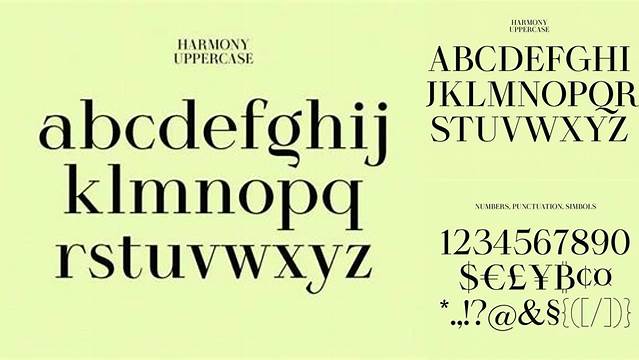
Are you on the hunt for that perfect font to elevate your design projects? Look no further, guys! In this article, we're diving deep into the world of Harmony Modern Serif, a font that's been making waves in the design community. We'll explore what makes it so special, how you can use it, and most importantly, how to get your hands on it for free. So, buckle up and let's get started!
What is Harmony Modern Serif Font?
When we talk about Harmony Modern Serif, we're not just talking about another typeface; we're talking about a versatile tool that can breathe life into your creative visions. This font is characterized by its elegant curves, clean lines, and a contemporary aesthetic that blends the classic appeal of serifs with a modern sensibility. It’s the kind of font that makes you sit up and take notice, whether it’s gracing the pages of a high-end magazine or adding a touch of sophistication to a website's header. The beauty of Harmony Modern Serif lies in its balance. The serifs, those small strokes at the end of the letters, give it a traditional feel, while the overall design maintains a sleek, minimalist quality. This makes it incredibly adaptable, fitting seamlessly into a variety of design contexts. Think of it as the chameleon of fonts, able to transform and adapt to suit your needs. You can use it for headlines, body text, logos, branding materials, and so much more. It’s the kind of font that designers reach for when they want to convey a sense of elegance, trustworthiness, and modernity, all rolled into one neat package. But what really sets Harmony Modern Serif apart? It's the attention to detail. Every curve, every line, every serif has been meticulously crafted to ensure a cohesive and harmonious look. The spacing between letters, known as kerning, is carefully considered, creating a visual rhythm that's pleasing to the eye. This level of refinement is what elevates a good font to a great font, and it's what makes Harmony Modern Serif a standout choice for designers who demand the best. Moreover, the Harmony Modern Serif font often comes with a variety of weights and styles, such as regular, italic, bold, and more. This versatility allows you to create visual hierarchy within your designs, emphasizing key information and adding depth to your layouts. Imagine using the bold weight for headlines to grab attention, and the regular weight for body text to ensure readability. The possibilities are endless! And let's not forget the importance of a well-designed font in conveying the right message. A font isn't just about aesthetics; it's about communication. It’s about setting the tone and mood of your design. Harmony Modern Serif, with its blend of classic and contemporary elements, can help you project an image of sophistication, reliability, and innovation. It’s a font that says, “We’re modern, but we also value tradition.”
Key Features and Design Elements
Delving deeper into Harmony Modern Serif, let's dissect its key features and design elements. Understanding these nuances will help you appreciate its versatility and how it can enhance your projects. At its core, Harmony Modern Serif is defined by its high contrast between thick and thin strokes. This contrast is a hallmark of modern serif fonts, lending them a refined and elegant appearance. The thick strokes command attention, while the thin strokes add a delicate touch, creating a visual dance that's both striking and graceful. This contrast is particularly evident in the letterforms, where the vertical strokes are often thicker than the horizontal ones, giving the font a strong, vertical emphasis. This verticality contributes to its modern feel, making it a perfect choice for designs that aim to convey a sense of sophistication and contemporary style. The serifs themselves are another crucial element of Harmony Modern Serif. Unlike the bracketed serifs found in older serif fonts, Harmony’s serifs are typically hairline or wedge-shaped. This gives them a sharp, clean look that complements the font's overall modernity. These serifs aren't just decorative; they also contribute to the font's readability, guiding the eye across the page and making it easier to read long passages of text. The terminals, or the ends of the strokes, are another area where Harmony Modern Serif shines. They are often cut at a sharp angle, adding to the font's crisp and polished appearance. This attention to detail in the terminals is what elevates Harmony from a simple serif font to a truly modern typeface. The letterforms in Harmony Modern Serif are generally well-proportioned and balanced. The x-height, which is the height of the lowercase letters relative to the uppercase letters, is usually moderate to high. This contributes to the font's legibility, making it comfortable to read even at smaller sizes. The curves in the letterforms are smooth and flowing, adding to the font's overall elegance. These curves are carefully crafted to create a sense of harmony and balance, which is, after all, what the font's name suggests. The spacing, or kerning, in Harmony Modern Serif is meticulously adjusted to ensure a consistent and pleasing visual rhythm. The letters are spaced closely enough to create a cohesive word shape, but not so closely that they feel cramped or crowded. This careful attention to spacing is what makes Harmony so readable and visually appealing. Furthermore, many versions of Harmony Modern Serif include a range of weights and styles, from light to bold, and often include italic versions as well. This versatility allows designers to create visual hierarchy within their designs, using different weights to emphasize key elements and add interest. The italic versions of Harmony are often particularly elegant, with flowing curves and a distinct personality. In addition to its aesthetic qualities, Harmony Modern Serif is also designed with practicality in mind. It's typically optimized for both print and digital use, ensuring that it looks crisp and clear on screens of all sizes. This is an important consideration for any font, as designs are increasingly viewed on a variety of devices, from smartphones to large desktop monitors. In summary, the key features and design elements of Harmony Modern Serif – its high contrast, clean serifs, sharp terminals, balanced letterforms, careful spacing, and range of weights and styles – all contribute to its modern elegance and versatility. It's a font that's designed to make a statement, while also being practical and easy to read.
How to Use Harmony Modern Serif in Your Designs
Now that we've established what makes Harmony Modern Serif so special, let's talk about how you can actually use it in your designs. This font is incredibly versatile, but understanding its strengths will help you make the most of it. First and foremost, Harmony Modern Serif excels in branding projects. Its elegant and sophisticated look makes it a perfect choice for logos, business cards, and other branding materials. Imagine a high-end fashion brand or a luxury hotel using Harmony in their logo – it instantly conveys a sense of quality and refinement. The font's clean lines and balanced letterforms create a professional and trustworthy image, which is crucial for building brand recognition and loyalty. When using Harmony Modern Serif in branding, consider pairing it with a simple, sans-serif font for body text. This creates a visual contrast that is both modern and easy to read. A classic pairing might be Harmony for headlines and a font like Open Sans or Lato for the body copy. This combination ensures that your brand message is both stylish and accessible. Beyond branding, Harmony Modern Serif is also an excellent choice for editorial design. Its readability and elegant appearance make it ideal for magazines, books, and other publications. Whether you're designing a fashion magazine, a literary journal, or a corporate report, Harmony can help you create a polished and professional look. In editorial design, consider using different weights and styles of Harmony Modern Serif to create visual hierarchy. Use the bold weight for headlines and subheadings to grab the reader's attention, and the regular weight for body text to ensure readability. The italic version can be used for captions, quotes, or other elements that you want to stand out. Another fantastic application for Harmony Modern Serif is in web design. Its clean lines and modern aesthetic make it a great choice for websites of all kinds, from corporate sites to personal blogs. However, when using any serif font on the web, it's important to ensure that it renders well on different browsers and devices. Test your font choices on various screens to make sure that the text is crisp and legible. In web design, Harmony Modern Serif can be used for headlines, navigation menus, and even body text, depending on the overall design aesthetic. Consider using it in combination with a sans-serif font for a modern and balanced look. For example, you might use Harmony for the website's logo and headlines, and a font like Roboto or Montserrat for the body text. This creates a clean and contemporary feel that is both visually appealing and user-friendly. Furthermore, Harmony Modern Serif is a great option for creating invitations, posters, and other print materials. Its elegant and sophisticated look makes it perfect for formal events, such as weddings and galas. Use it to create beautiful invitations, save-the-dates, and other stationery items that exude class and style. In print design, you have more control over how the font is rendered, so you can really let Harmony's beauty shine. Use it in large sizes for headlines and titles, and in smaller sizes for body text. Experiment with different colors and textures to create a unique and eye-catching design. Finally, don't be afraid to experiment with Harmony Modern Serif in unexpected ways. Try using it in unconventional layouts, or pairing it with unexpected fonts. The key is to have fun and let your creativity guide you. Remember, the best designs are often those that break the rules and push the boundaries of what's expected.
Alternatives to Harmony Modern Serif
If, after your search, you find that Harmony Modern Serif isn't readily available for free or doesn't quite fit your project's needs, don't fret! The world of typography is vast and varied, and there are plenty of excellent alternatives that can provide a similar aesthetic. Let's explore some fonts that share Harmony's modern serif charm. One of the most popular alternatives is Playfair Display. This font exudes elegance and sophistication, with its high contrast and delicate serifs. Playfair Display is particularly well-suited for headlines and titles, adding a touch of class to any design. It's a free font available on Google Fonts, making it easily accessible for a wide range of projects. Another fantastic option is EB Garamond. This font is a modern revival of the classic Garamond typeface, known for its readability and timeless appeal. EB Garamond strikes a perfect balance between traditional and contemporary, making it a versatile choice for both print and digital designs. Like Playfair Display, EB Garamond is also available on Google Fonts, making it a convenient and cost-effective alternative. If you're looking for a font with a slightly bolder and more assertive personality, Lora is worth considering. Lora is a well-balanced serif font with roots in calligraphy, giving it a unique and expressive quality. It's highly readable and works well in both body text and headlines. Lora is another free font available on Google Fonts, making it a great choice for projects with a limited budget. For a font that exudes a sense of modernity and sophistication, Didot is a classic option. Didot is characterized by its high contrast, thin serifs, and elegant letterforms. It's often used in fashion magazines and high-end branding, conveying a sense of luxury and style. While Didot is not always available for free, many foundries offer similar fonts with comparable aesthetics. Bodoni is another font that shares Didot's high-contrast and elegant qualities. Bodoni is a timeless typeface that has been used in a wide range of applications, from books and magazines to logos and posters. It's a versatile font that can add a touch of sophistication to any design. Like Didot, Bodoni may not be readily available for free, but there are many excellent versions available for purchase. If you prefer a font with a slightly softer and more rounded appearance, Merriweather is a great alternative. Merriweather is designed specifically for on-screen readability, making it an excellent choice for websites and digital publications. It has a warm and inviting feel, while still maintaining a modern and professional look. Merriweather is available for free on Google Fonts. Another excellent alternative for web design is Arvo. This slab-serif font has a geometric and modern feel, with strong serifs that add a touch of personality. Arvo is highly readable and works well in a variety of contexts, from headlines to body text. It's a free font available on Google Fonts. Finally, don't overlook the power of pairing different fonts together. If you can't find a single font that perfectly captures the look you're after, try combining a serif font with a sans-serif font. For example, you might pair Playfair Display with Montserrat, or EB Garamond with Open Sans. This can create a dynamic and visually appealing design that is both modern and readable. In conclusion, while Harmony Modern Serif is a fantastic font, there are many other excellent options available. Whether you're looking for a free alternative or a premium typeface, exploring different fonts is a great way to expand your design toolkit and create unique and compelling visuals.
Conclusion: Embrace the Elegance of Modern Serif Fonts
In conclusion, guys, modern serif fonts like Harmony Modern Serif offer a unique blend of classic elegance and contemporary style. They are versatile tools that can elevate your designs, whether you're working on branding, editorial layouts, web design, or print materials. The key is to understand their characteristics and how to use them effectively. We've explored the defining features of Harmony Modern Serif, from its high contrast and clean lines to its carefully crafted serifs and balanced letterforms. We've discussed how to use it in various design contexts, from logos and headlines to body text and invitations. And we've provided guidance on where to find it for free, as well as suggested some excellent alternatives. Remember, typography is a crucial element of design. The fonts you choose can have a significant impact on the overall look and feel of your project. A well-chosen font can communicate a sense of sophistication, trustworthiness, and modernity, while a poorly chosen font can undermine your message. That's why it's so important to take the time to explore different font options and find the ones that best suit your needs. Modern serif fonts, with their timeless appeal and contemporary edge, are a valuable addition to any designer's toolkit. They can help you create designs that are both beautiful and effective, capturing the attention of your audience and conveying your message with clarity and style. So, embrace the elegance of modern serif fonts, experiment with different typefaces, and let your creativity flow. Whether you choose Harmony Modern Serif or one of its many excellent alternatives, you're sure to find a font that will help you bring your design visions to life. Happy designing!